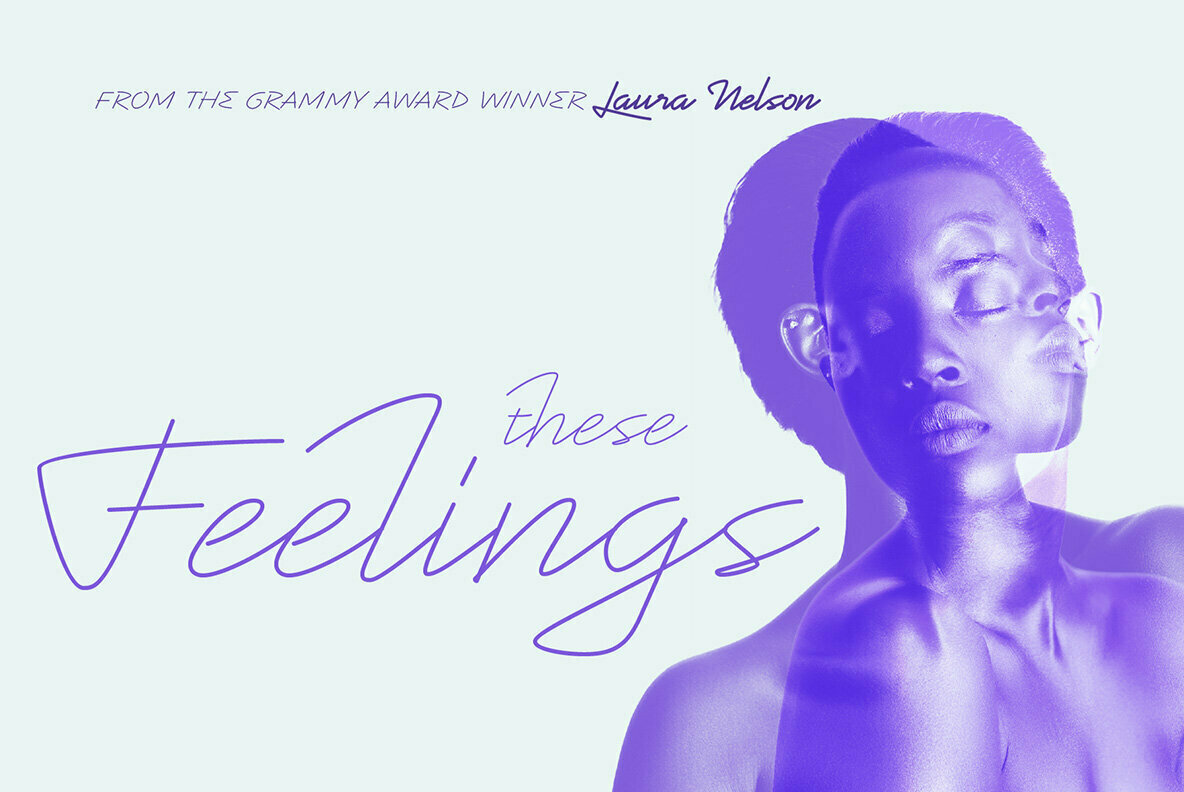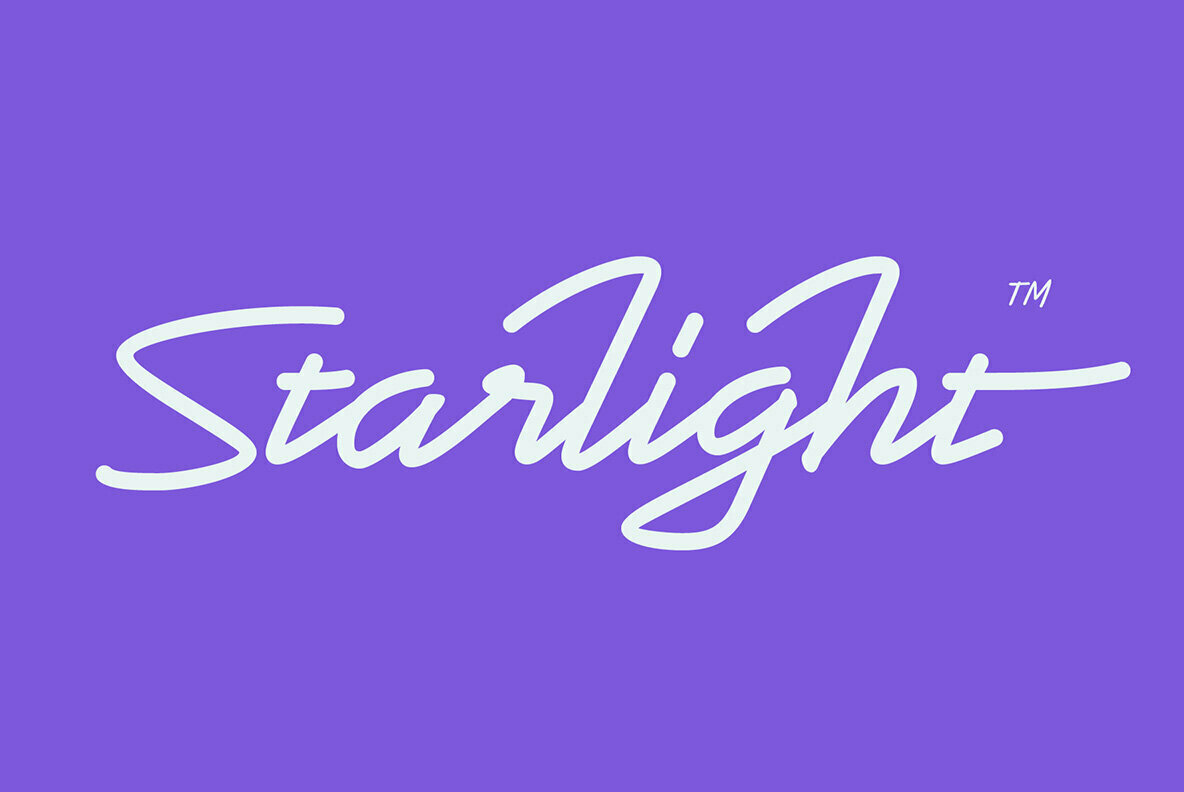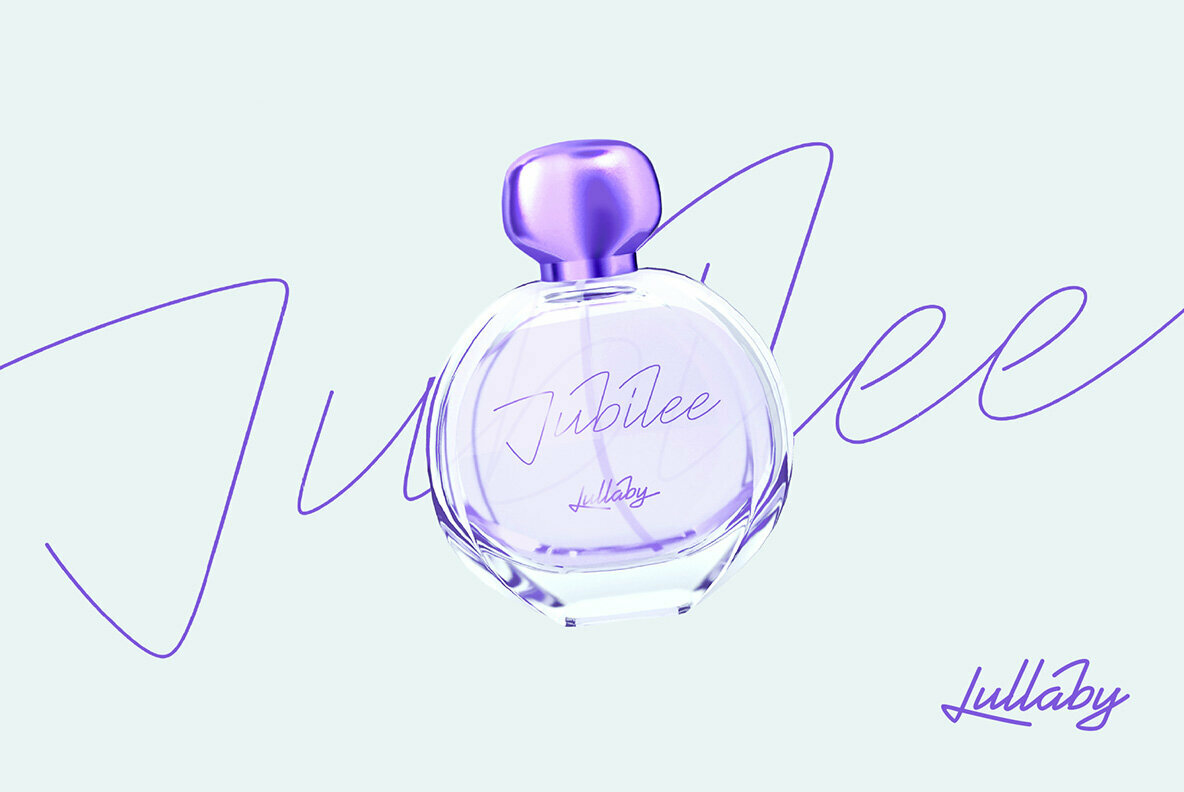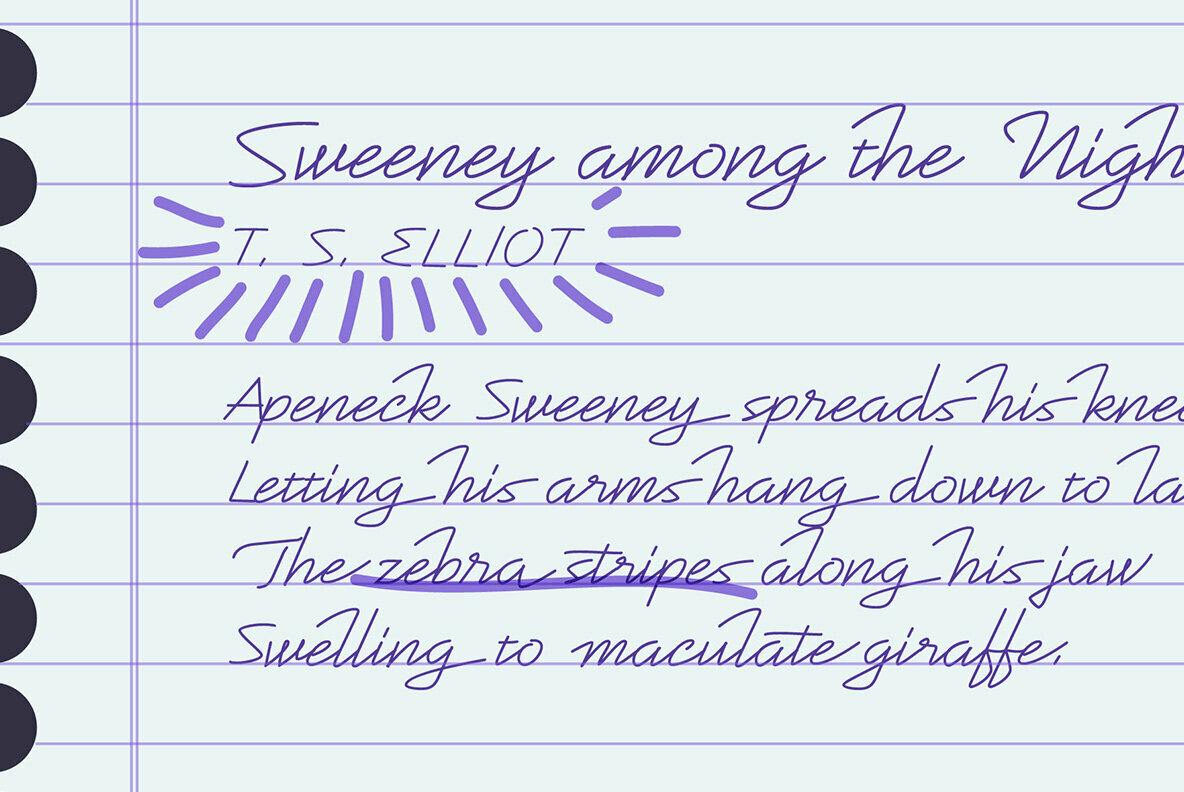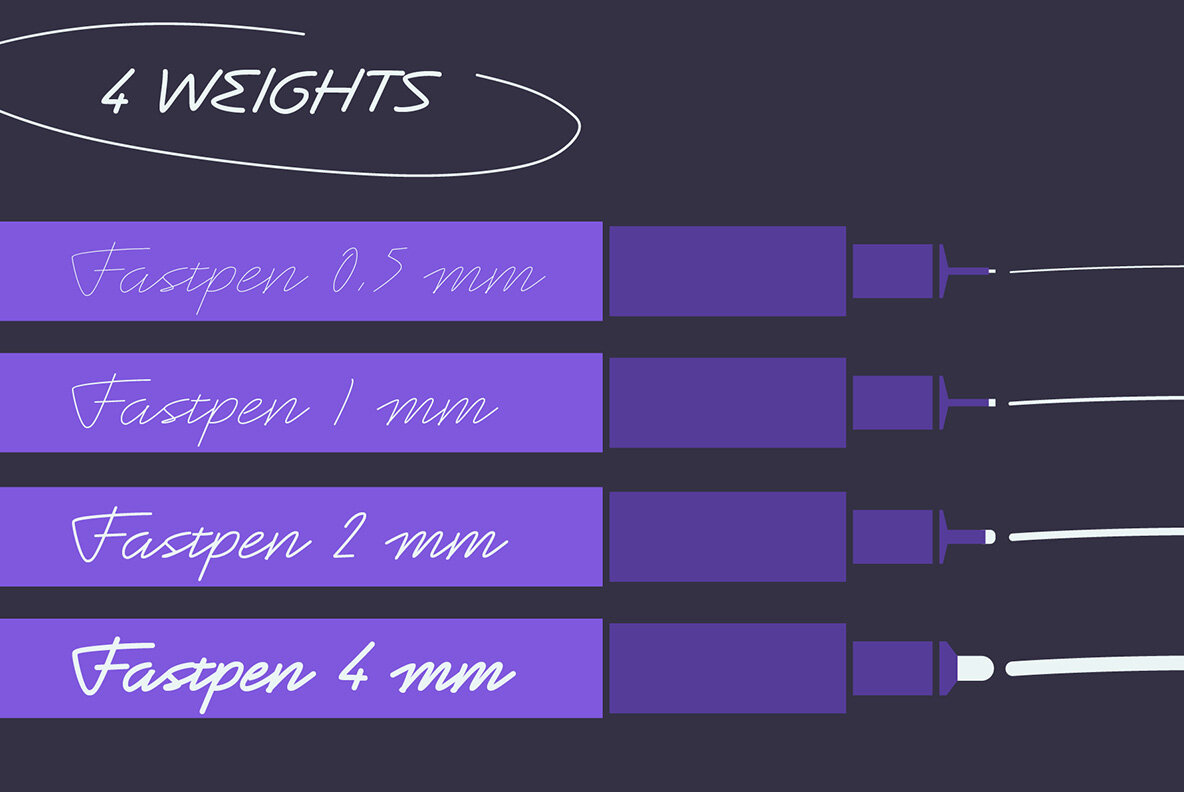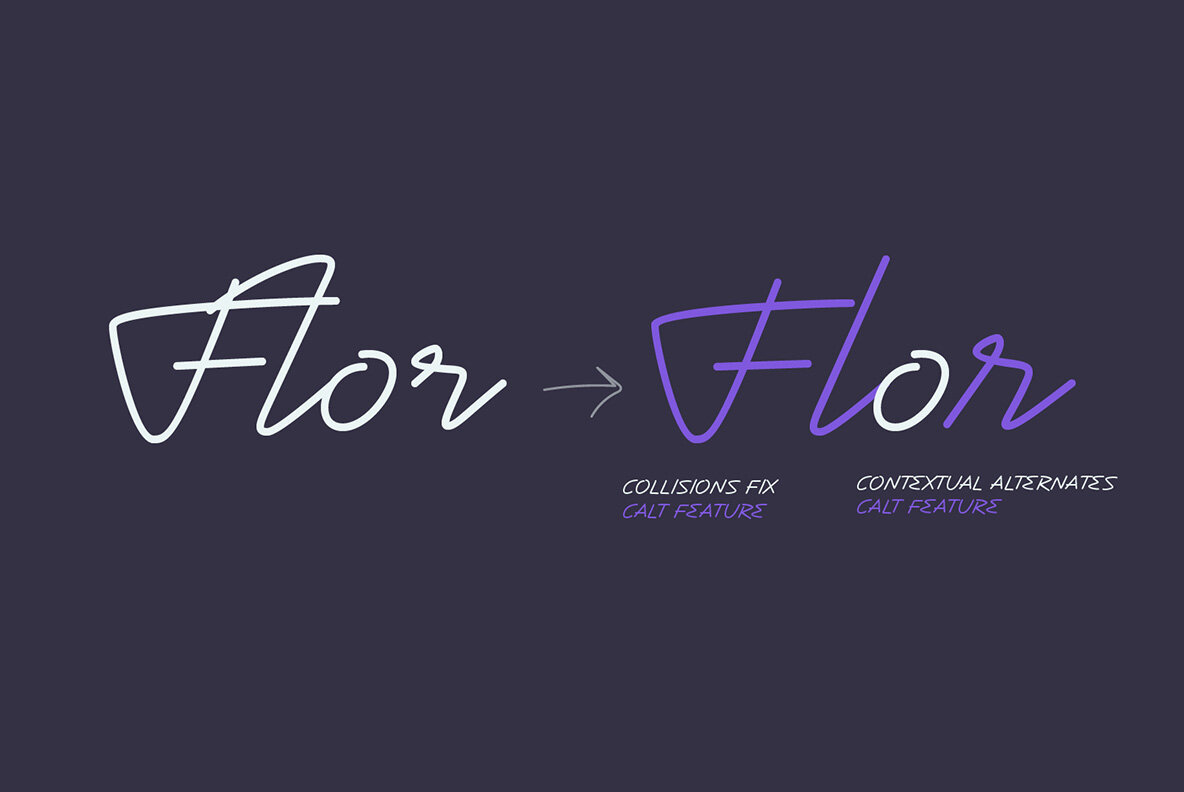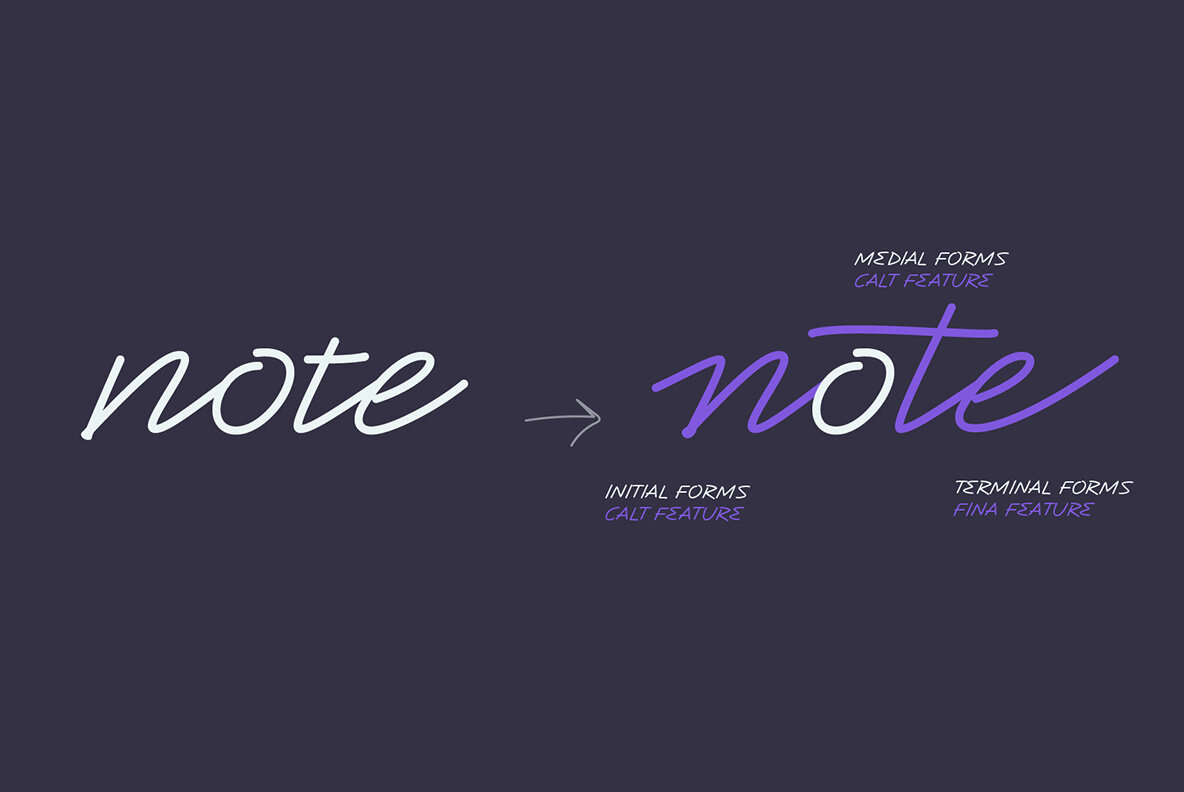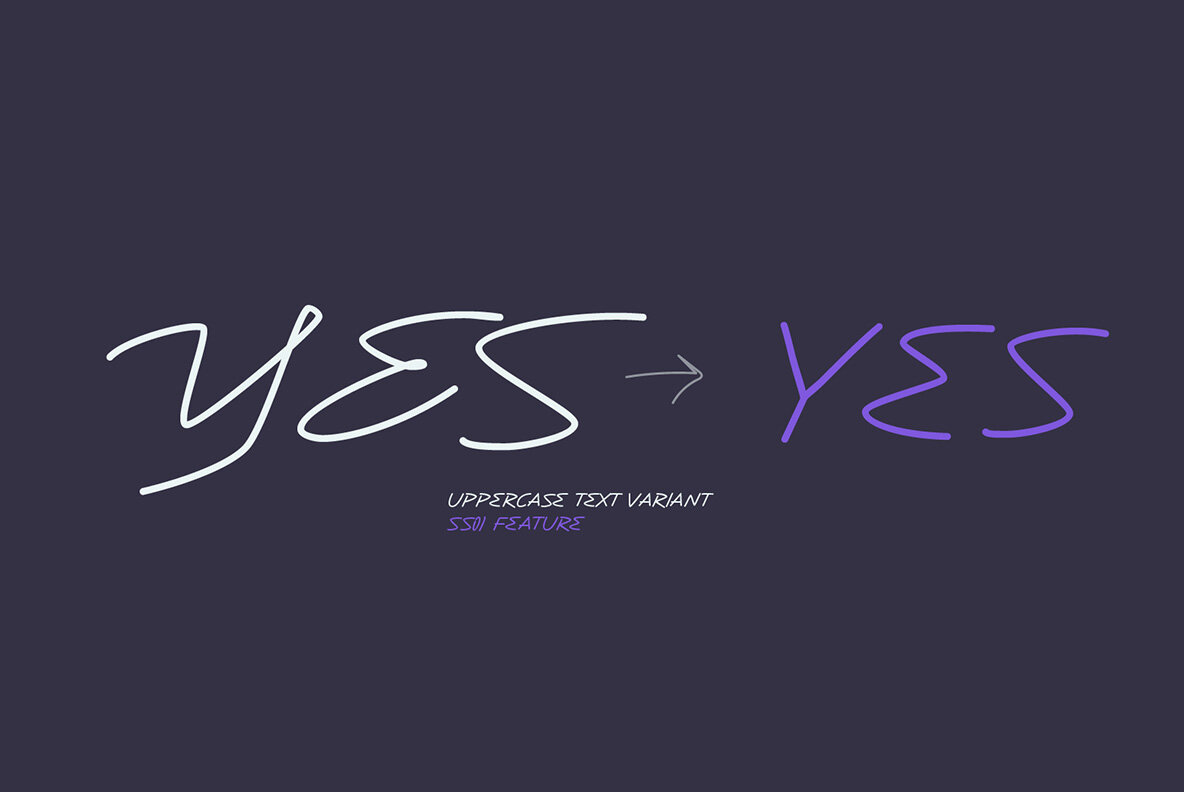
Fastpen Font
Fastpen is a script typeface based on fast handwritten pen strokes. It has 4 weights, each emulates a pen/brush thickness (0.5mm, 1mm, 2mm and 4mm).
It is meant to create a realistic handwritten look with a lot of contextual alternates that capture the quirks of writing. There are many substitutions happening automatically (make sure you activate “contextual alternates”) to give you the most seamless workflow.
Collision fixes, initial and medial glyph substitution, happen automatically, terminal forms are also available but need to be activated separately.
The fonts also have a built in stylistic set (ss01) if you want to type uppercase only text.
Energetic, joyful, with long elegant ascenders and extravagant swash capitals. Each thickness can give slightly different feelings, from the thinest (0.5mm) very delicate one to the more impactful one (4mm).
Fastpen has an extensive language support, so pretty much every European language is covered.